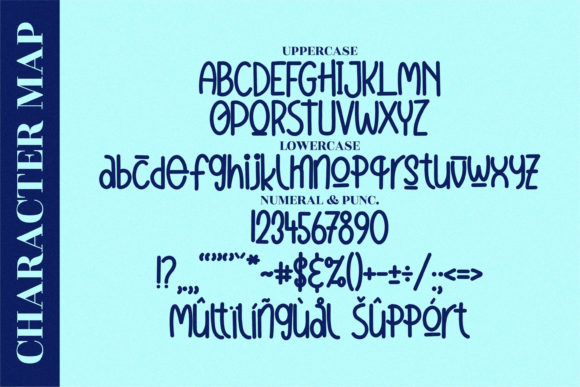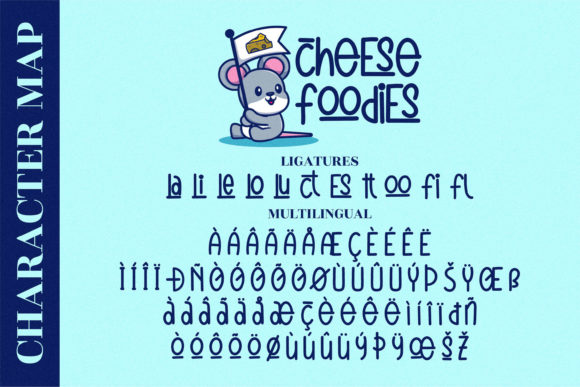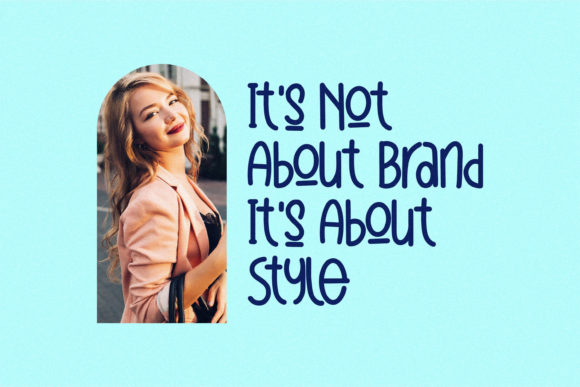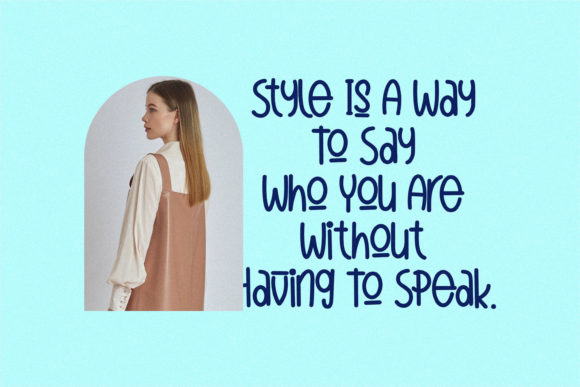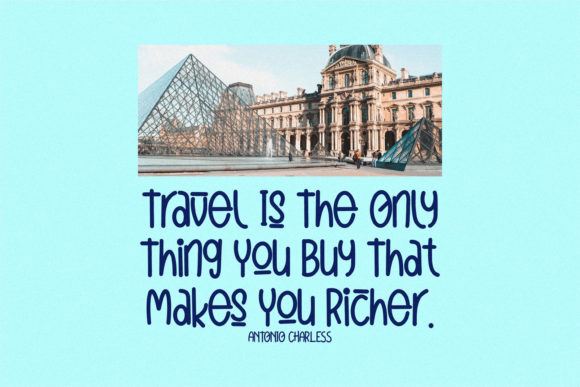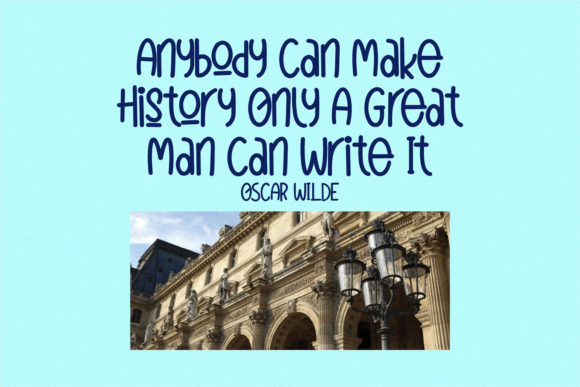
Introducing Cheese Foodies Font: The Perfect Addition to Your Design Collection
Are you a designer or crafter looking for a unique and playful font to add a personal touch to your creations? Look no further than Cheese Foodies Font, a simple, fun, and quirky handwritten font that’s perfect for a variety of design projects. In this article, we’ll take a closer look at the features and benefits of Cheese Foodies Font, and explore how you can use it to elevate your designs.
What is Cheese Foodies Font?
Cheese Foodies Font is a charming handwritten font that’s designed to bring a smile to your face. With its playful and carefree vibe, this font is ideal for designers and crafters who want to add a touch of whimsy to their work. Whether you’re creating cartoon-related designs, children’s games, or simply looking for a font that can add a lovely touch to your creations, Cheese Foodies Font is an amazing choice.
Key Features of Cheese Foodies Font
- Handwritten style: Cheese Foodies Font has a beautiful handwritten style that’s perfect for creating unique and personalized designs.
- Playful and quirky: This font has a fun and quirky vibe that’s sure to add a touch of whimsy to your designs.
- Simple and easy to read: Despite its playful style, Cheese Foodies Font is simple and easy to read, making it perfect for use in a variety of design projects.
- Versatile: This font can be used in a range of design projects, from cartoon-related designs and children’s games to crafts and more.
Uses for Cheese Foodies Font
So, what can you use Cheese Foodies Font for? The possibilities are endless! Here are a few ideas to get you started:
- Cartoon-related designs: Add a playful touch to your cartoon characters, comics, and animations with Cheese Foodies Font.
- Children’s games: Create fun and engaging games for kids with this font, perfect for titles, headings, and game text.
- Crafts: Use Cheese Foodies Font to add a personal touch to your craft projects, such as DIY signs, labels, and more.
- Digital designs: Add a playful touch to your digital designs, such as social media graphics, blog posts, and more.
Benefits of Using Cheese Foodies Font
So, why choose Cheese Foodies Font for your design projects? Here are just a few benefits of using this font:
- Unique and eye-catching: Cheese Foodies Font is a one-of-a-kind font that’s sure to grab attention and add a touch of personality to your designs.
- High-quality: Cheese Foodies Font is a high-quality font that’s designed to produce crisp and clear text, even at small sizes.
Tips for Using Cheese Foodies Font
Here are a few tips for getting the most out of Cheese Foodies Font:
- Experiment with different sizes: Cheese Foodies Font looks great at a range of sizes, from small headings to large titles.
- Pair with other fonts: Try pairing Cheese Foodies Font with other fonts to create a unique and eye-catching combination.
- Use it sparingly: While Cheese Foodies Font is a fun and playful font, it’s best used sparingly to add a touch of personality to your designs.
In conclusion, Cheese Foodies Font is a unique and playful font that’s perfect for designers and crafters looking to add a touch of whimsy to their creations. With its handwritten style, playful vibe, and versatility, this font is sure to become a favorite in your design collection. So why not give it a try and see how Cheese Foodies Font can elevate your designs?